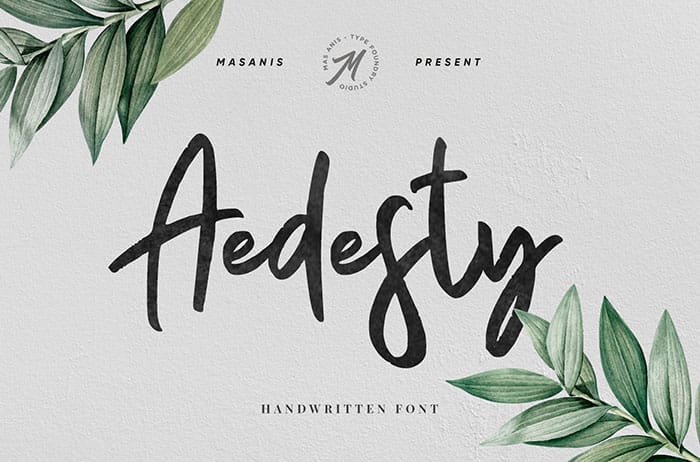
Aedesty Script Font
Aedesty is a smart and modern script font with a light feel. Use it to add a stunning twist to any design project. Designed this font by Mas Anis. You can also search more freeĀ Script Fonts.